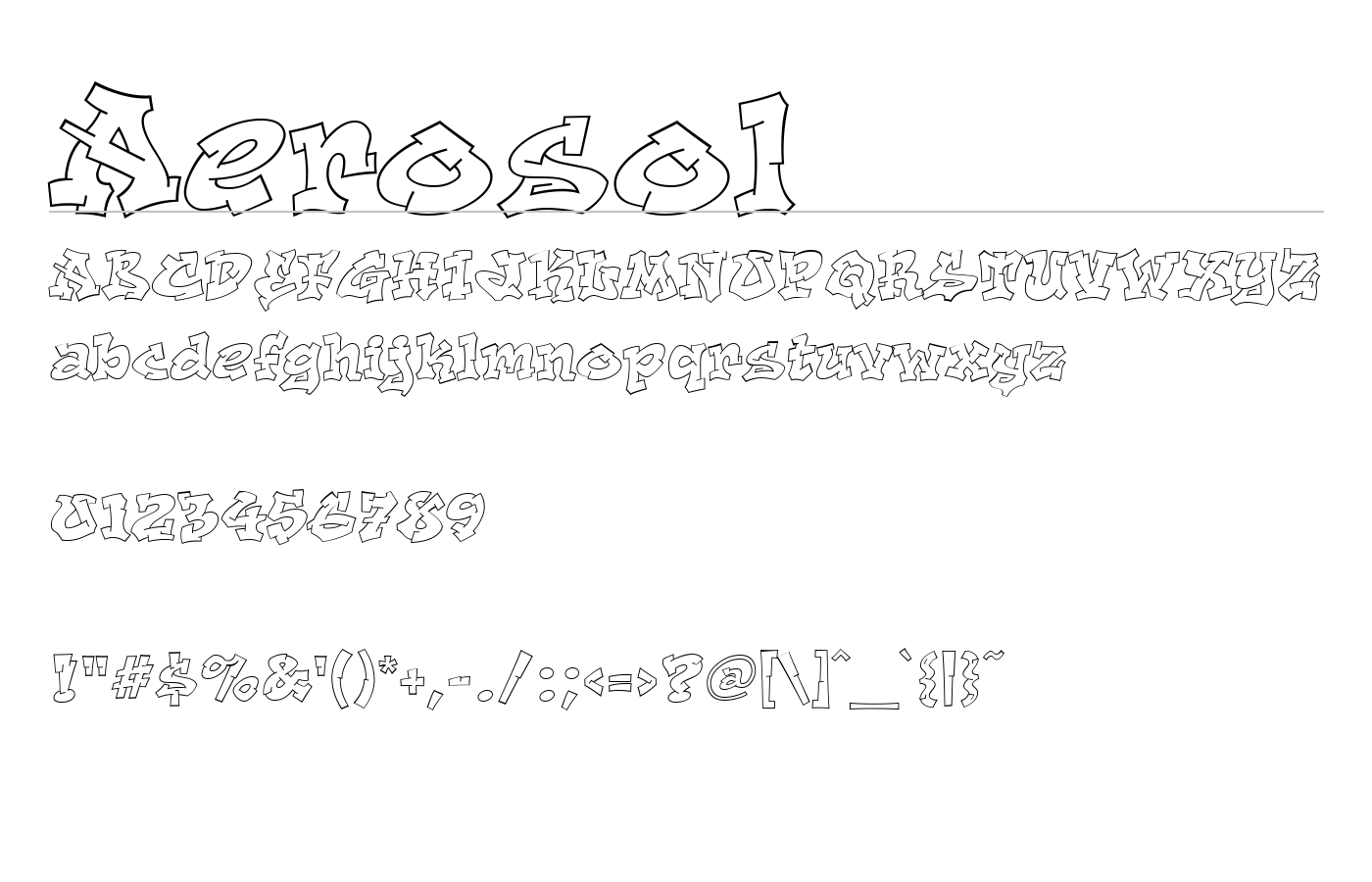
Aerosol is a bold, decorative display font with a fun, graffiti-inspired style characterized by its chunky, irregular letterforms and playful outlines. Its high energy and street-art vibe make it ideal for creating eye-catching headlines, posters, and logos that demand attention and convey a youthful, urban personality. This font works best in creative projects where a sense of rebellion, creativity, and bold expression is desired.
Aerosol Font
About Aerosol Font